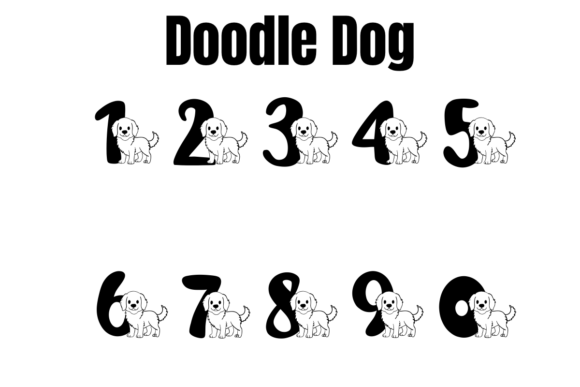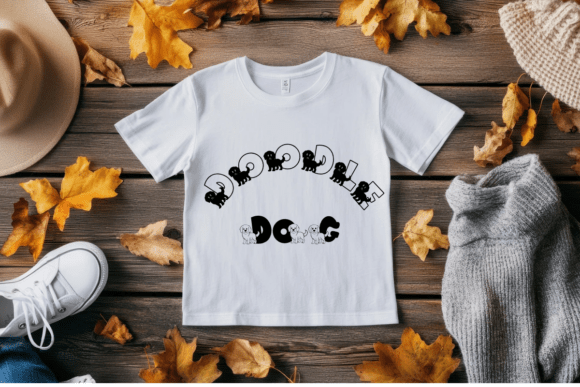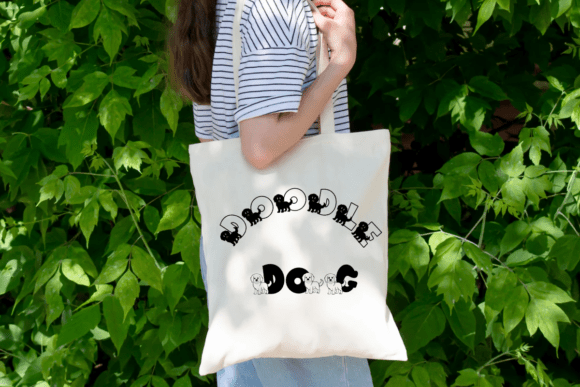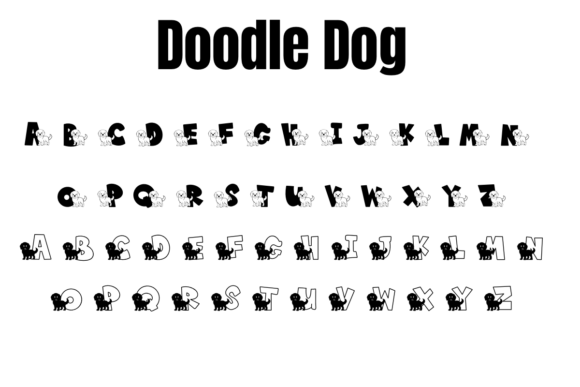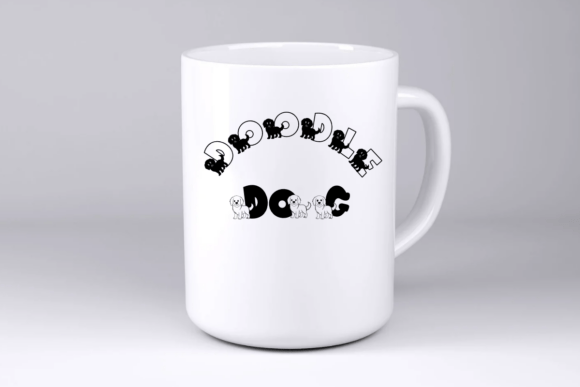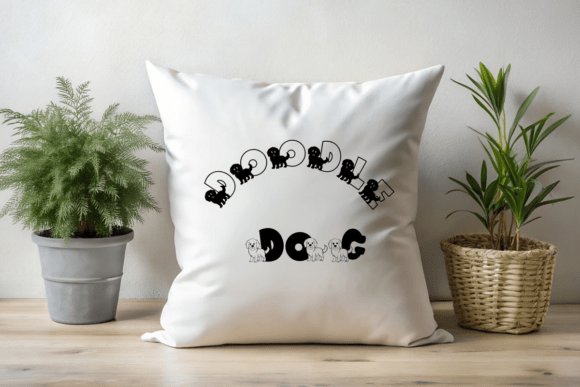
Introduction to Doodle Dog Font
Have you ever found yourself in the middle of a creative project, staring at a blank page, trying to come up with the perfect design element to bring it all together? It’s a familiar feeling for many designers, and it’s what sparked our love for the Doodle Dog Font.
This adorable decorative font is a game-changer for any creative project. With its cute and playful style, it adds a personal touch that can elevate your designs from ordinary to extraordinary. Whether you’re working on a logo, a social media graphic, or a children’s book, Doodle Dog Font is the perfect design resource to add a splash of personality to your work.
Key Features of Doodle Dog Font
- Unique, hand-drawn design perfect for creative projects, offering a playful and whimsical touch.
- Perfect for use in digital art, graphic design, and scrapbooking projects, adding a fun and personalized touch.
Honest Review: Doodle Dog Font
I recently stumbled upon the Doodle Dog Font while searching for a design resource to add a playful touch to a creative project. I was excited to give it a try and see if it would be a good fit for my needs.
Here’s what I like about the Doodle Dog Font:
- It’s a high-quality font that’s perfect for adding a fun, whimsical touch to a design. ✨
- The font comes with a transparent background, which makes it easy to customize and use in a variety of design scenarios.
- The font is a bit limited in terms of its character set, so it may not be suitable for projects that require a wide range of characters.
- The font’s design can be a bit overpowering, so it’s best used in moderation to avoid overwhelming the design.
Overall, I’m impressed with the Doodle Dog Font and would recommend it to designers looking for a fun and playful font to add to their design arsenal. Just be sure to use it thoughtfully and in moderation to get the best results.
Tips for Getting the Most Out of the Doodle Dog Font
For the best results, use the Doodle Dog Font in conjunction with other design elements, such as graphics and images. Experiment with different font sizes and styles to add visual interest to your design. You can also use the font with a free download of a design template for a quick and easy design solution.
The Doodle Dog Font is perfect for various creative projects, including children’s book illustrations, party invitations, and social media graphics. Its high-quality design and transparent background make it a versatile design resource for any project.